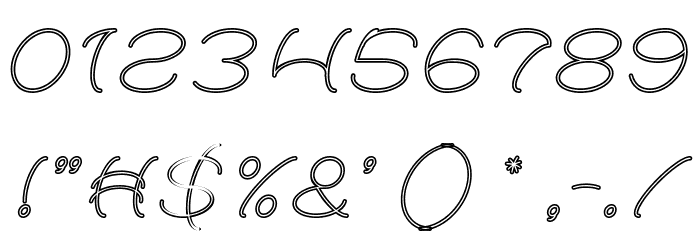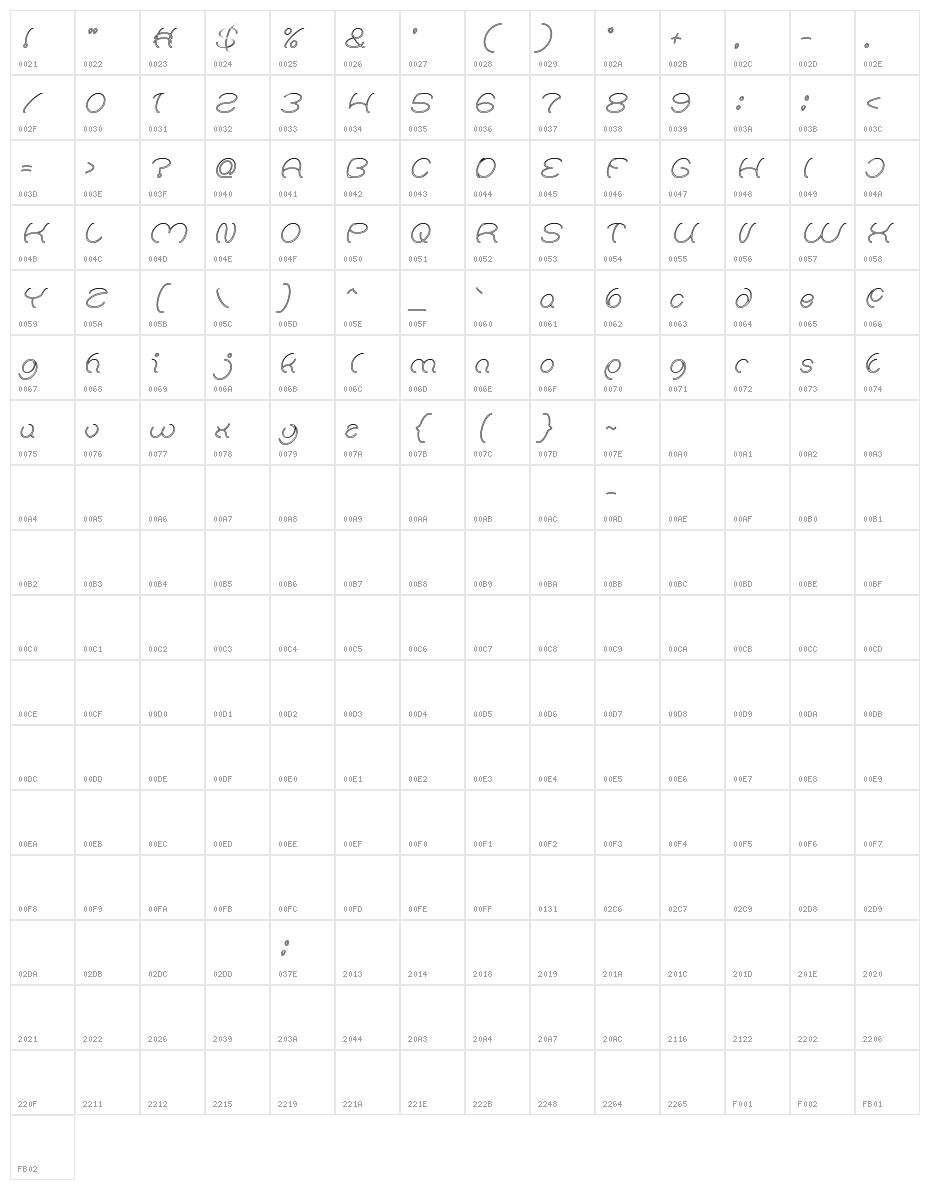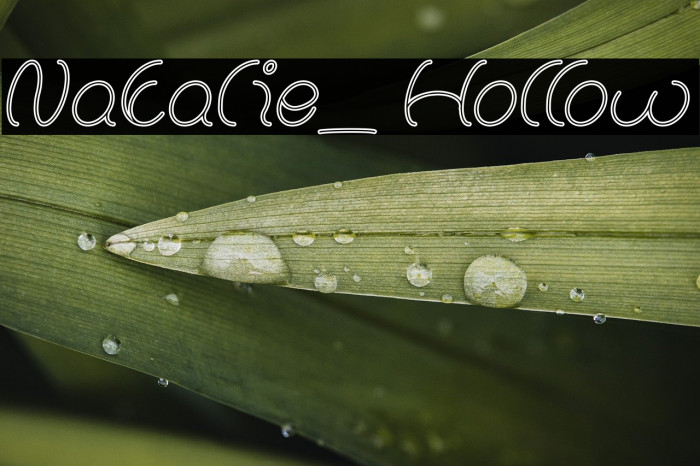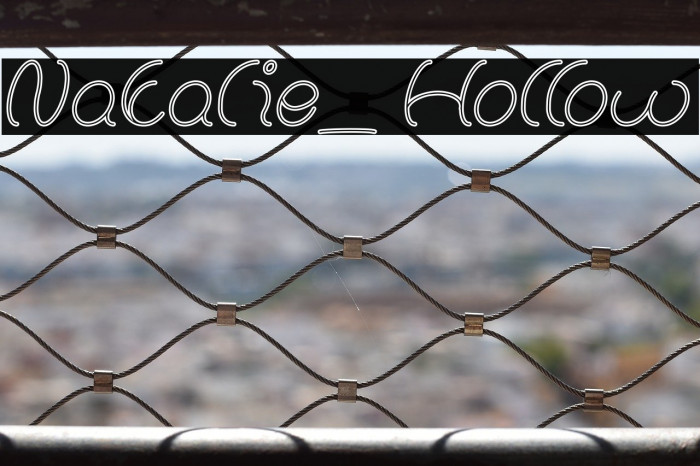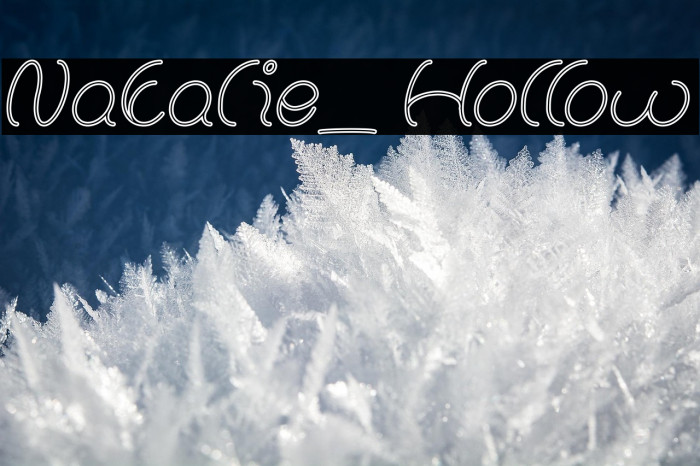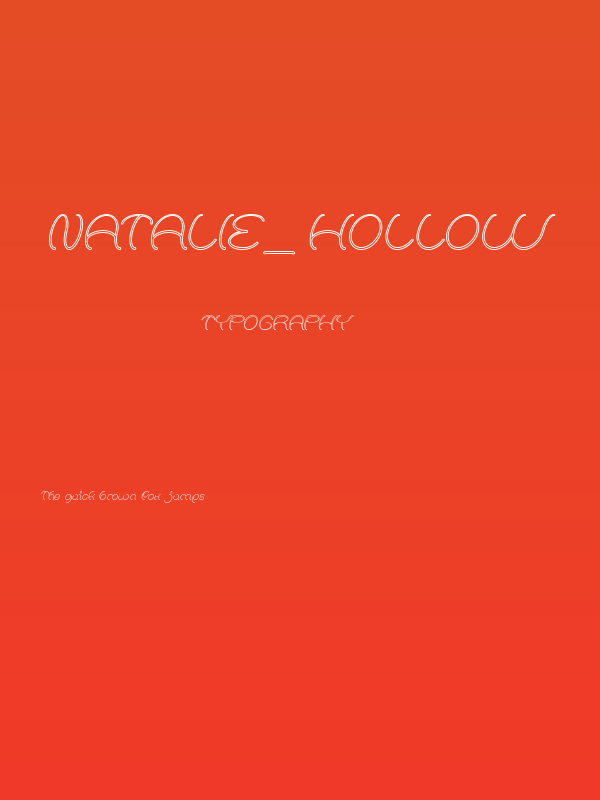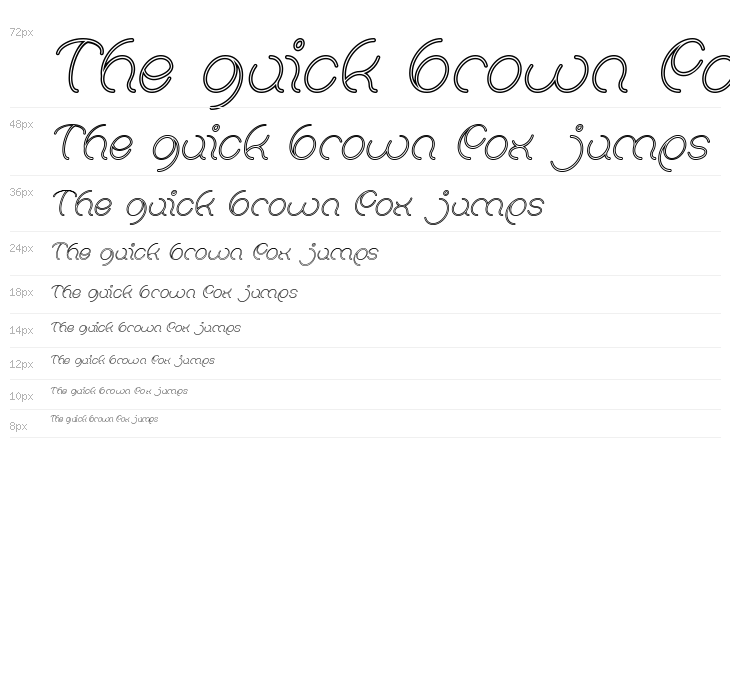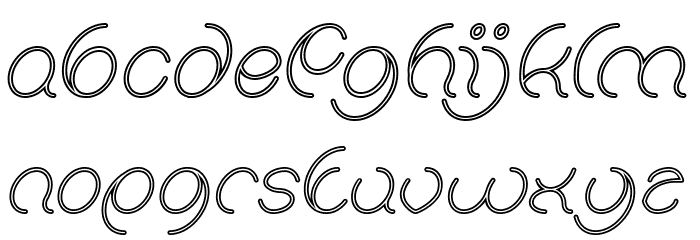
Natalie_Hollow Font
Natalie_Hollow Description
This font features a unique and playful design with a hollow, outlined style that gives it a light and airy appearance. The characters are rounded with smooth curves, creating a whimsical and friendly look. The uppercase and lowercase letters maintain a consistent style, with the lowercase letters slightly smaller and more compact. Numbers and special characters follow the same playful aesthetic, making the font versatile for various creative applications. The overall design is modern and eye-catching, suitable for projects that require a touch of fun and creativity.
Overall StyleModern, Decorative
Use CaseHeadlines, Logos, Creative projects
Proposed ProjectsIdeal for children's books, playful branding, creative posters, and whimsical invitations.